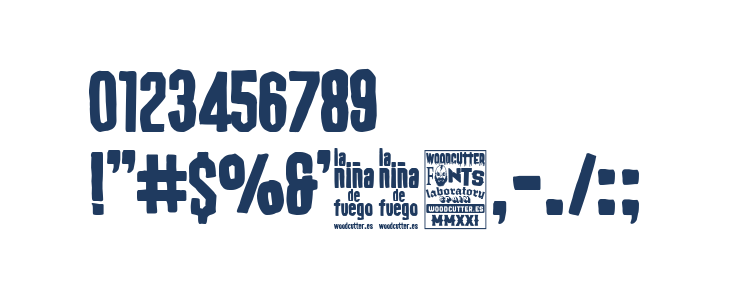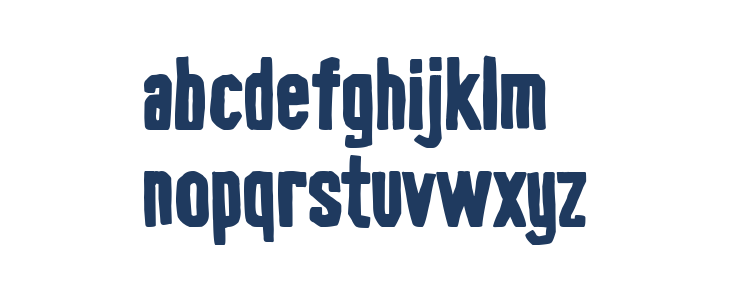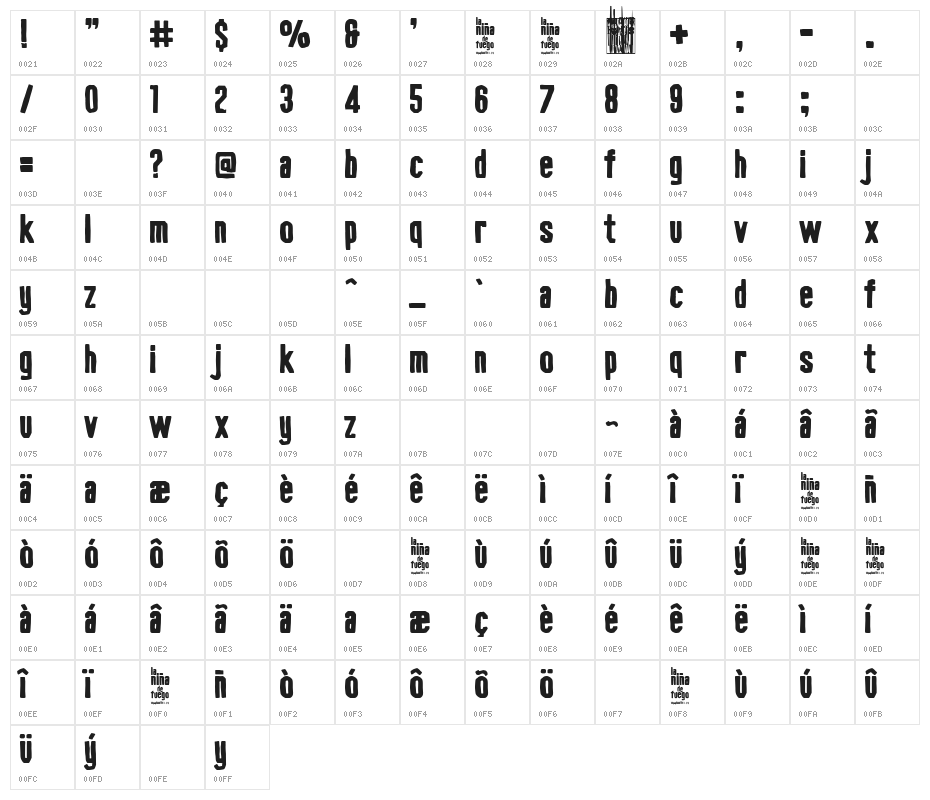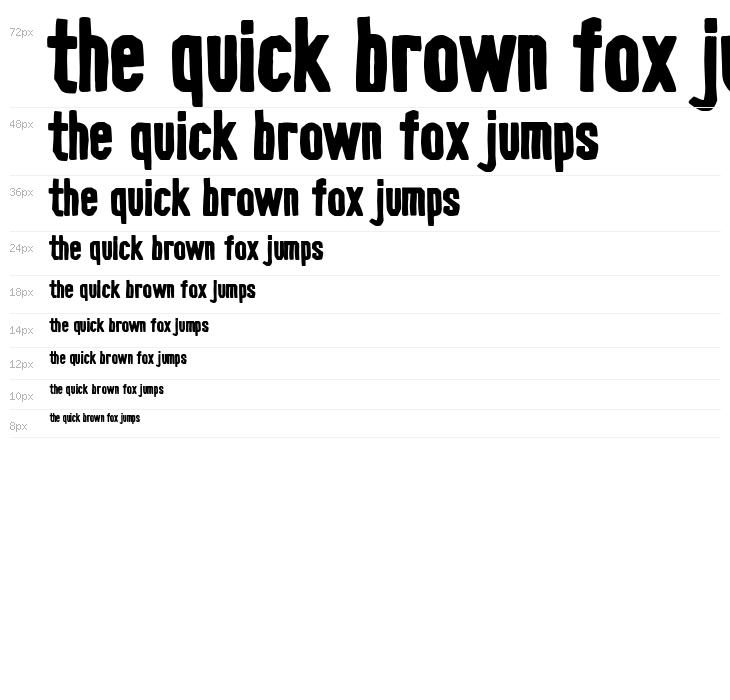
La ni Font
La ni Description
A bold, irregular sans-serif font with a hand-drawn, playful appearance. The letterforms are uneven and organic, with varying stroke thickness and quirky shapes, giving it a lively and expressive feel.
| Overall Style | Decorative, Playful, Hand-drawn |
| Use Case | Headlines, Posters, Logos, Display text |
| Proposed Projects | Posters, childrenΓ’β¬β’s books, comic titles, event flyers, branding for creative projects. |